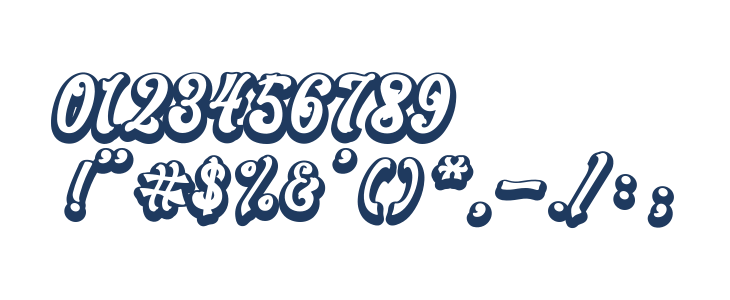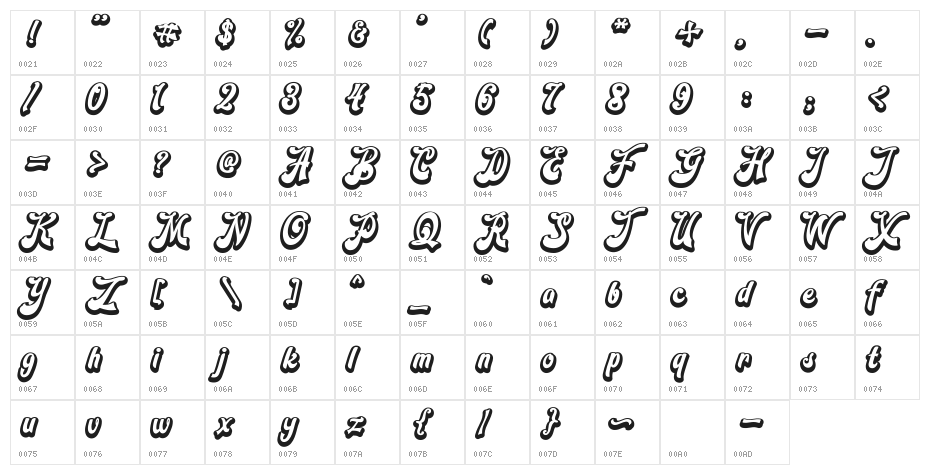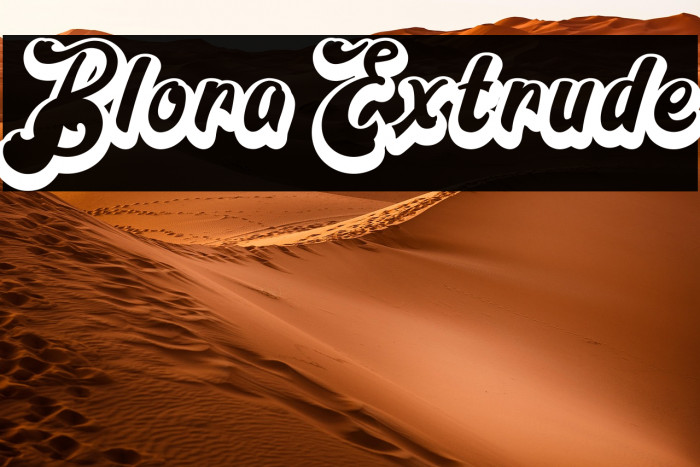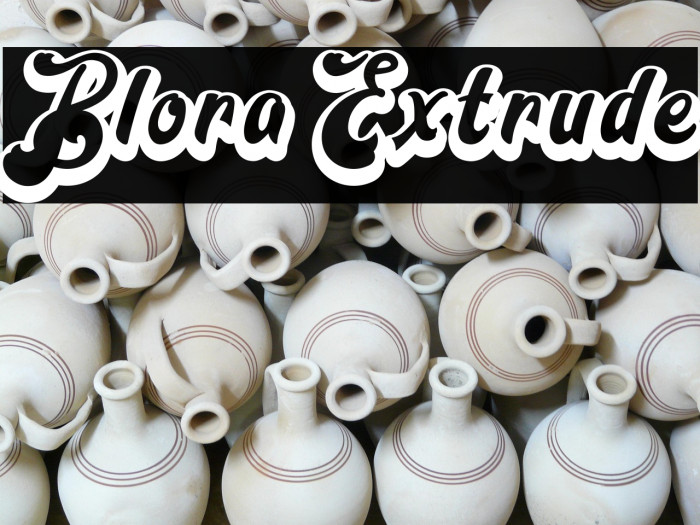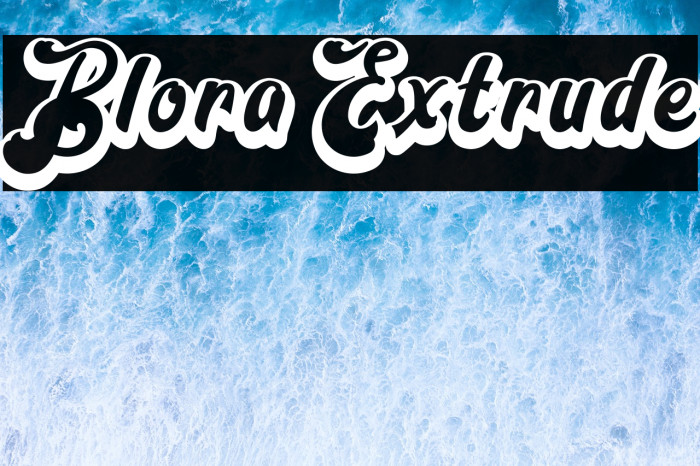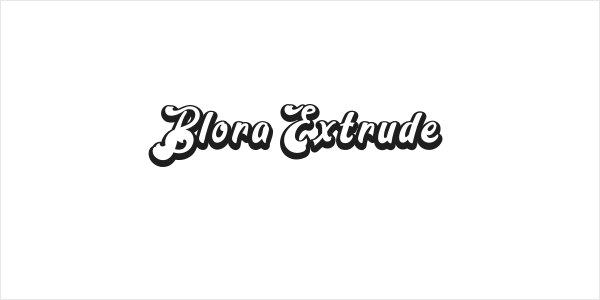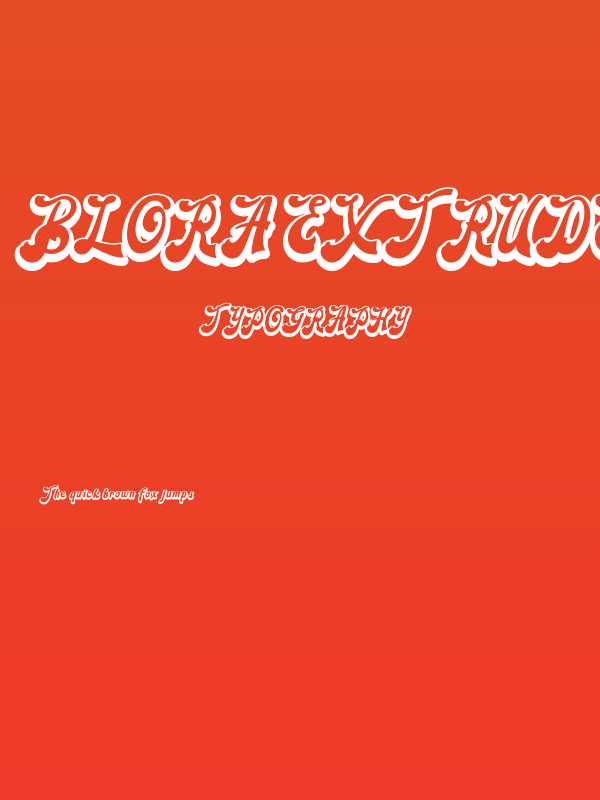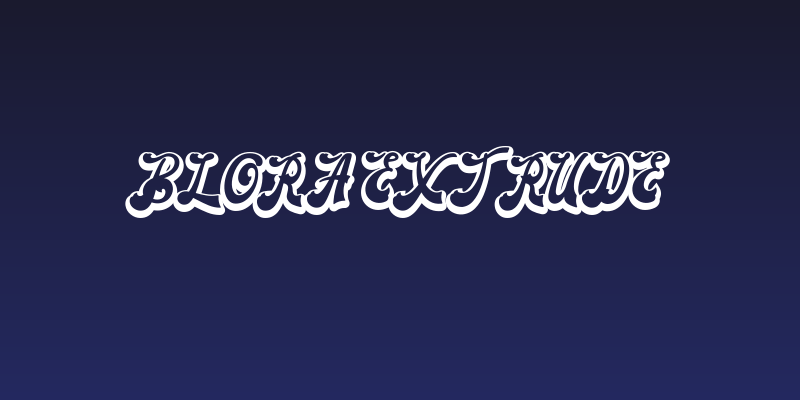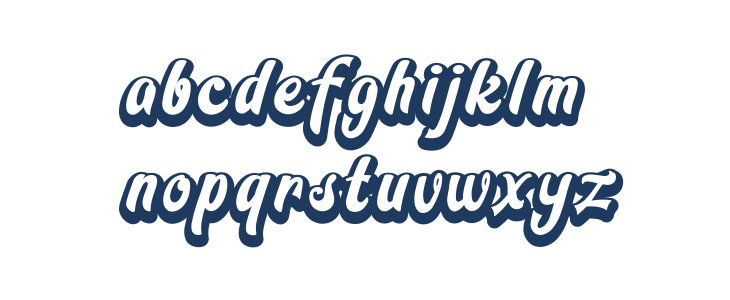
Blora Extrude Font
Blora Extrude Description
This font features a bold, playful style with a three-dimensional extruded effect that gives it a striking appearance. The characters are rounded and connected, reminiscent of a script style, yet maintain a strong, impactful presence due to their thickness and shadowing. The uppercase and lowercase letters are consistent in their design, with smooth curves and a sense of motion. The numbers and special characters follow the same design principles, ensuring uniformity across all glyphs. This font is ideal for projects that require a fun and dynamic look, such as posters, logos, or any design that aims to capture attention with its bold and lively appearance.
| Use Case | Logos, Headlines |
| Proposed Projects | Ideal for posters, logos, and designs needing a dynamic and eye-catching style. |